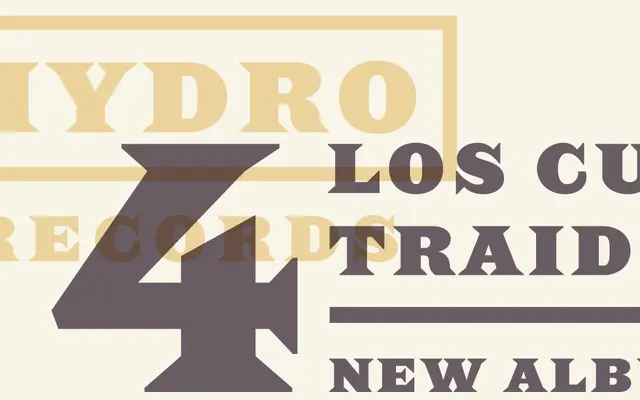
Saracen
Hoefler & Co · Jonathan Hoefler · 1992
A Latin wedge-serif display face in The Proteus Project, drawn as a missing Victorian gem with widths that match its three sibling families.
A display serif by Jonathan Hoefler that fills the Latin (wedge serif) slot in The Proteus Project, a four-family system whose members share character widths so they can be interchanged almost invisibly. H&Co note that although the wedge serif is a nineteenth-century innovation, Saracen does not resemble any font of the era, and is offered as the straightforward proportion that Victorian typefounders somehow never produced. Useful for posters, packaging, signage and identity work that wants Victorian wedge-serif character with a clean, contemporary build, and for editorial settings that want to swap between Latin, Egyptian, Tuscan and grotesque styles without disturbing line breaks.
H&Co describe Saracen as the Latin (wedge serif) member of The Proteus Project, a collection of four interchangeable nineteenth-century display families that share character widths so they can be swapped almost invisibly.